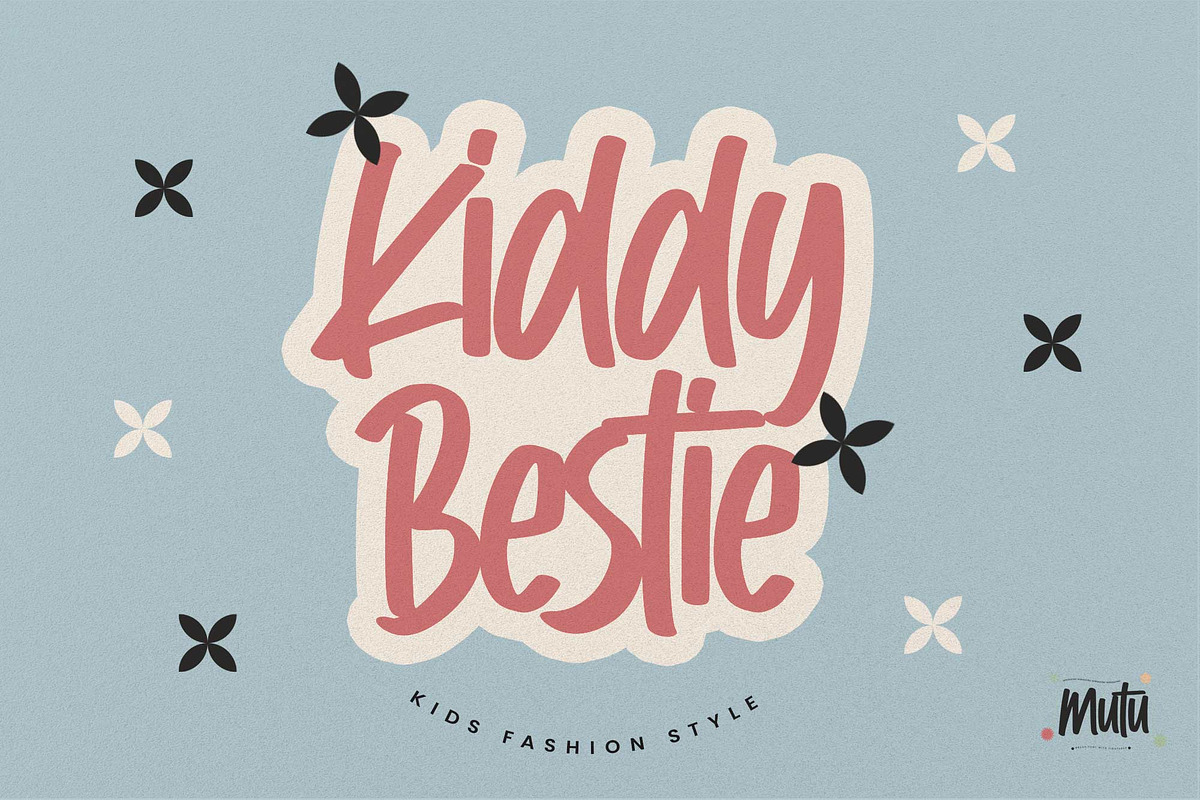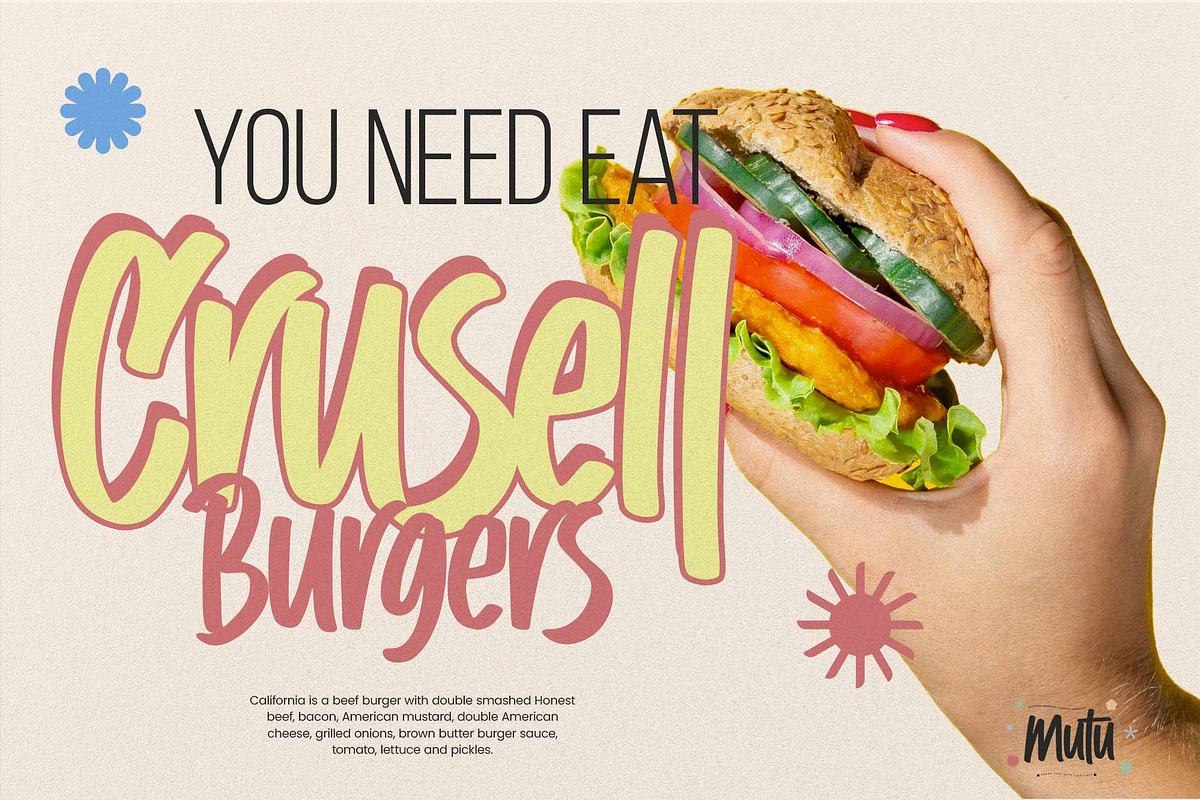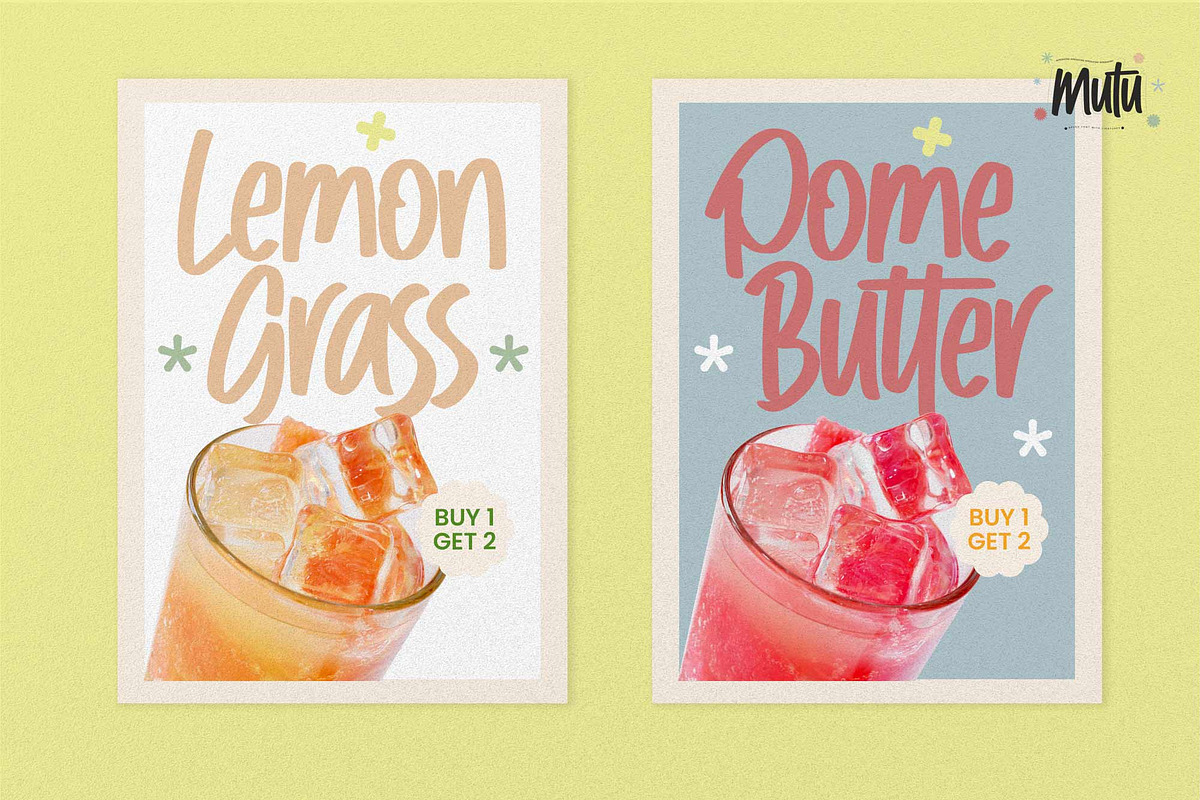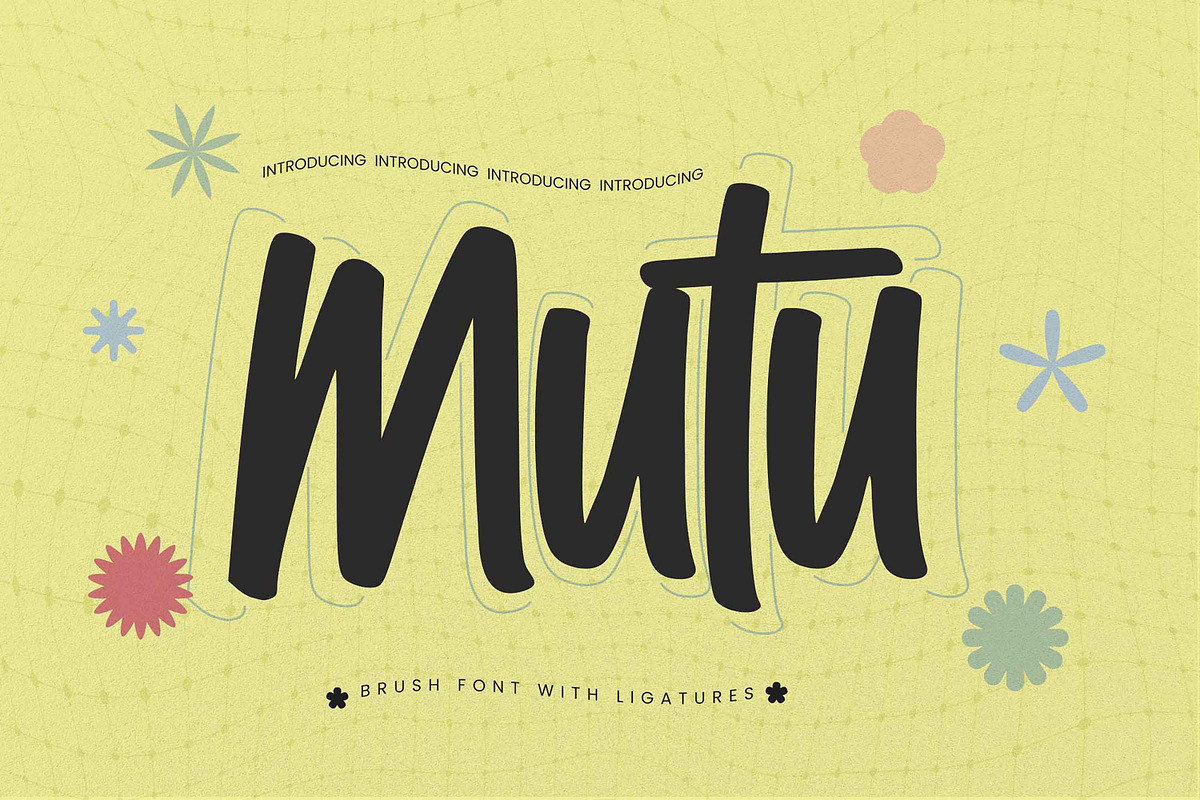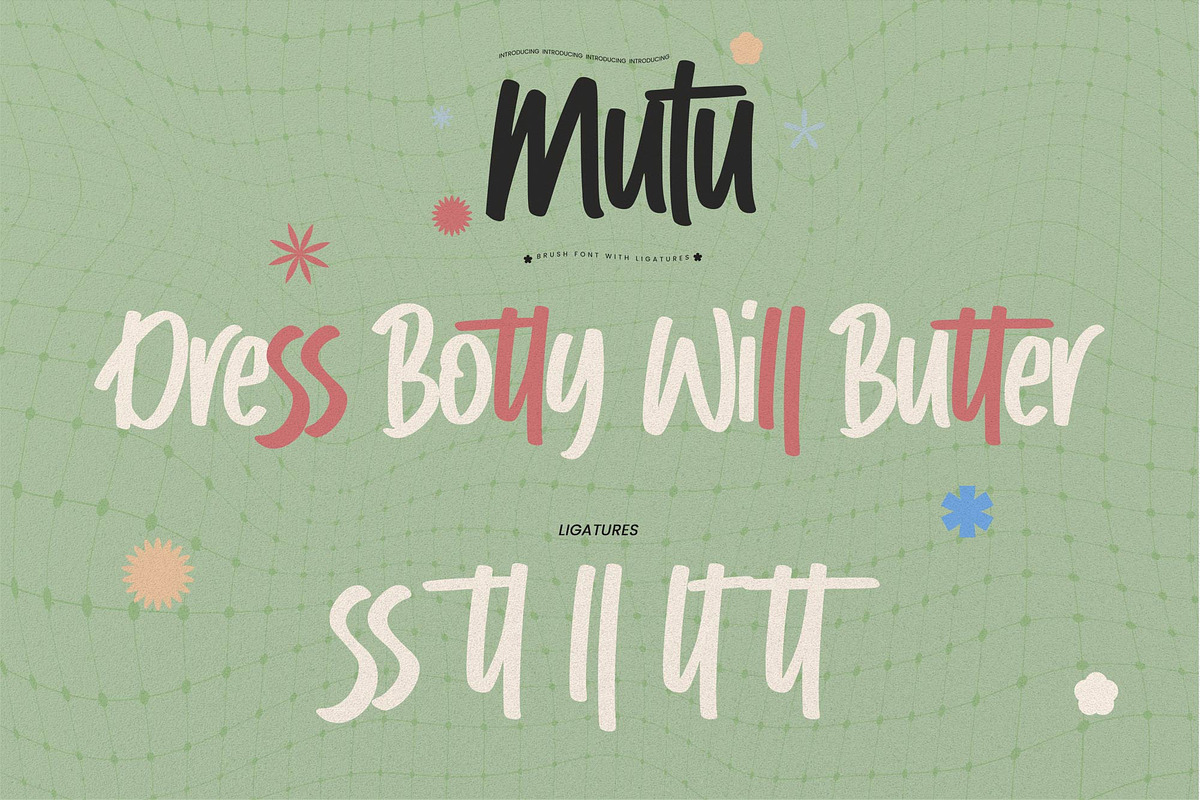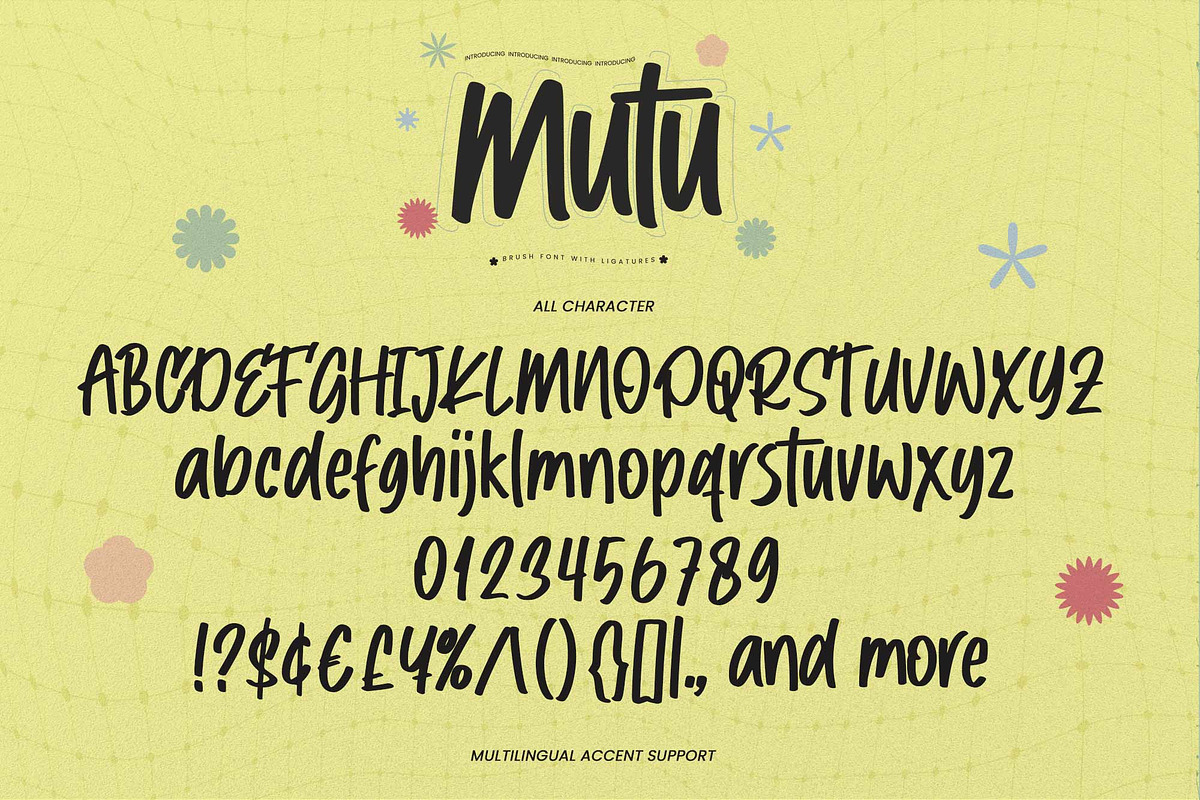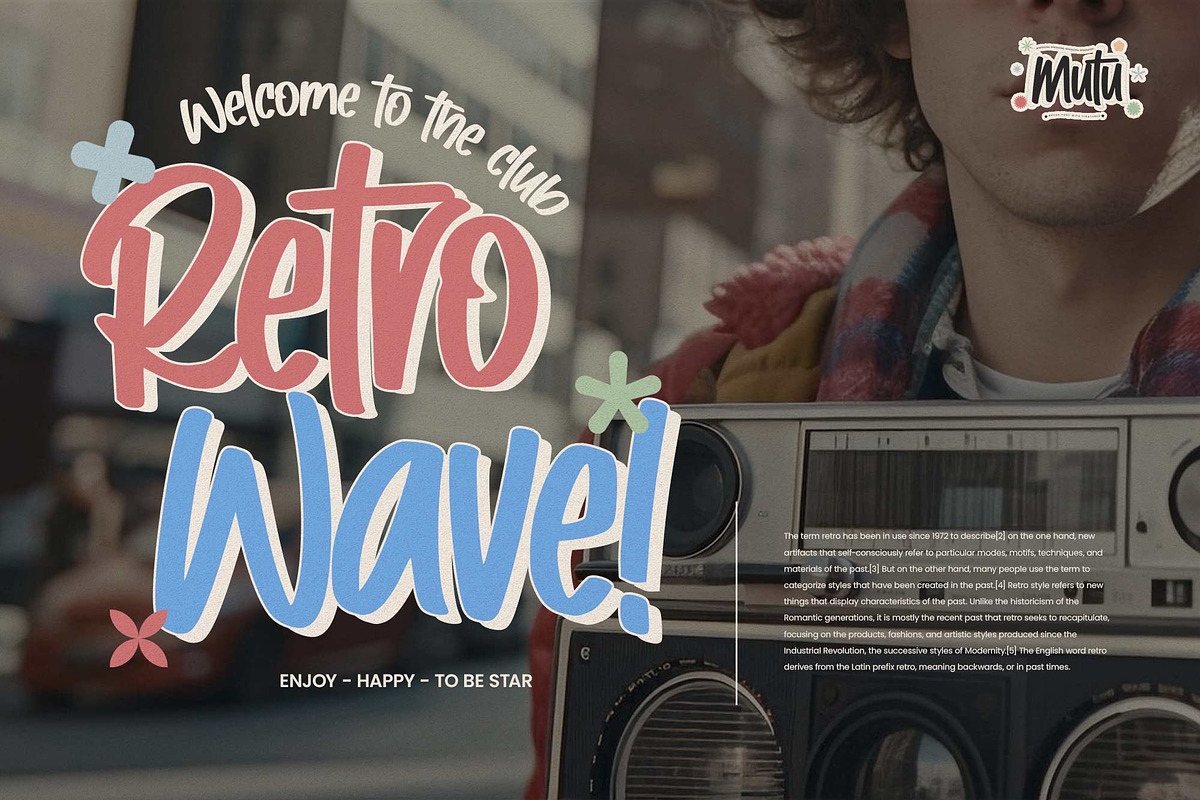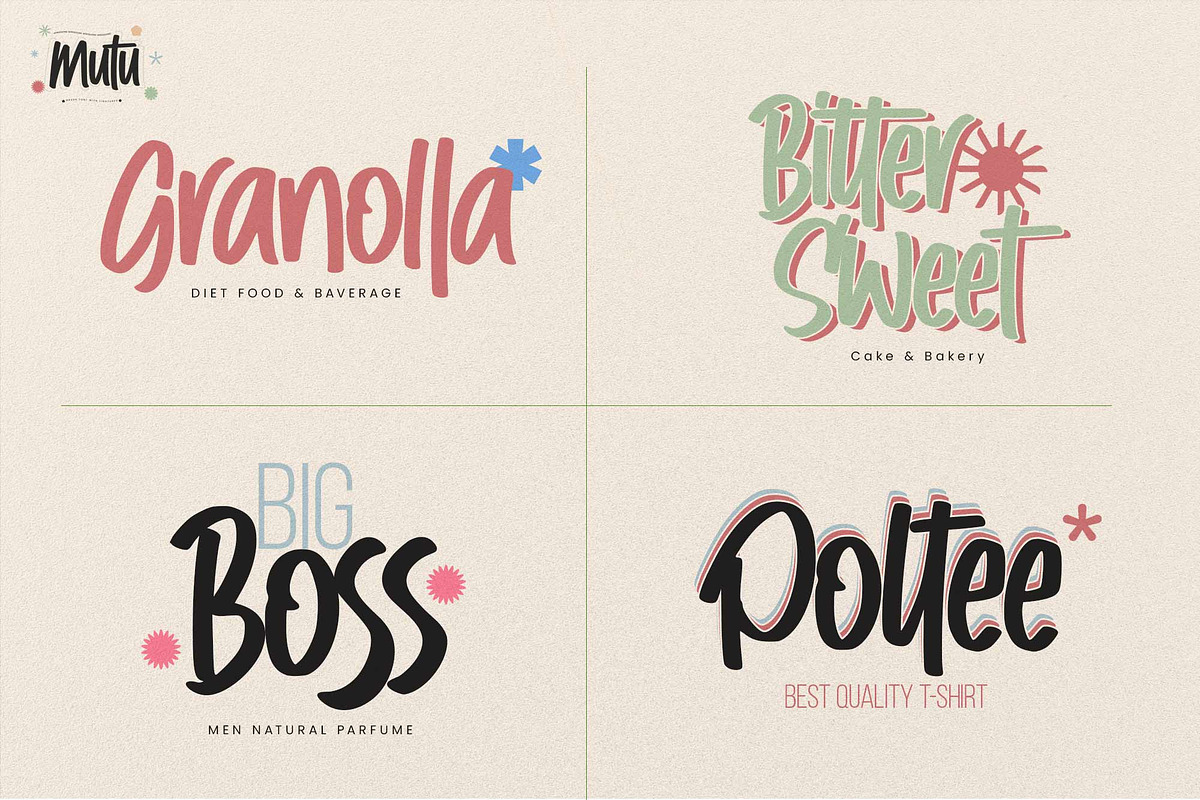
Mutu – Brush Font With Ligatures
Mutu is a brush font, this is a handmade font with ligatures and handmade, this font is perfect for making a strong statement in your designs.
Logos
Posters
Product packaging
Branding
Advertisements
Invitations
Stationery
Wedding designs
Labels
Photography watermarks
Quotes
and more
Add the bold and authentic character of this Font to your next project and capture the essence of the minimalist aesthetic.